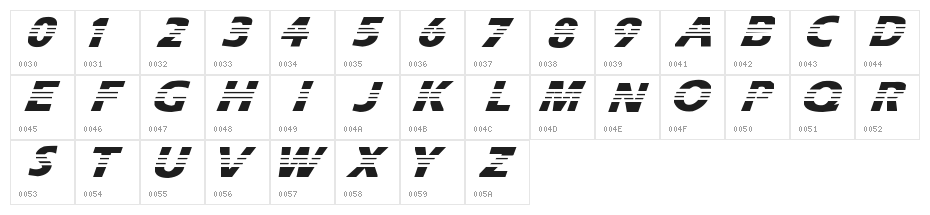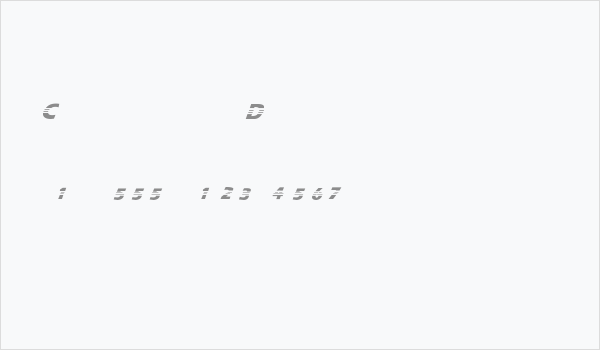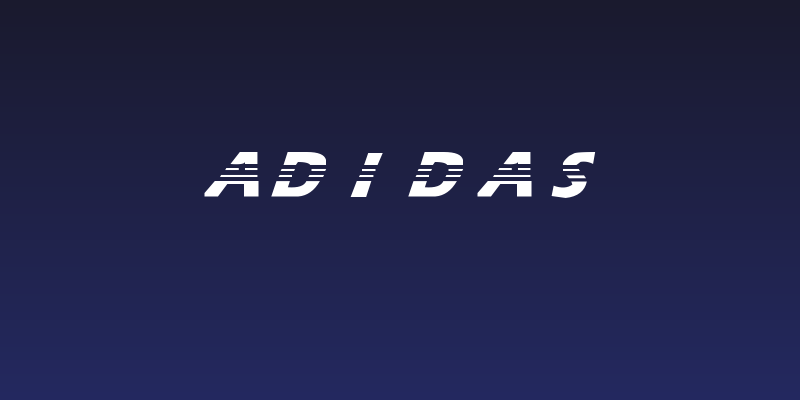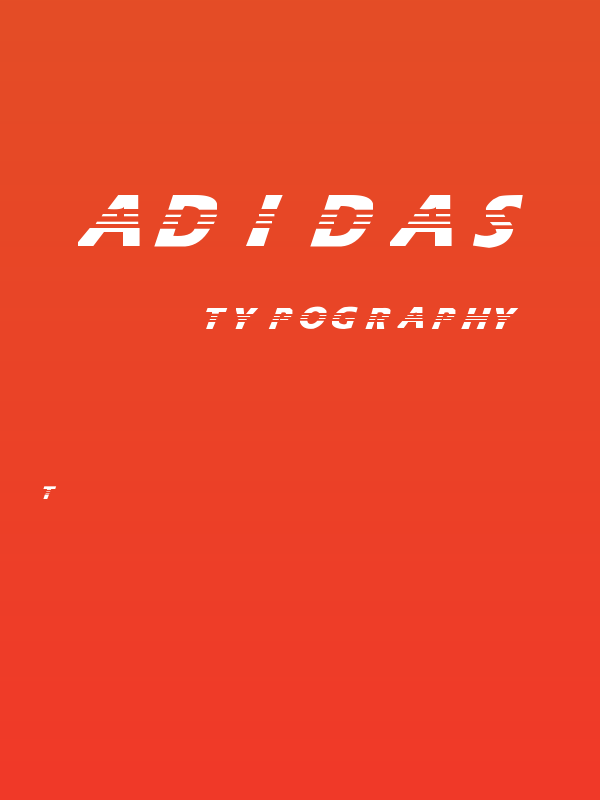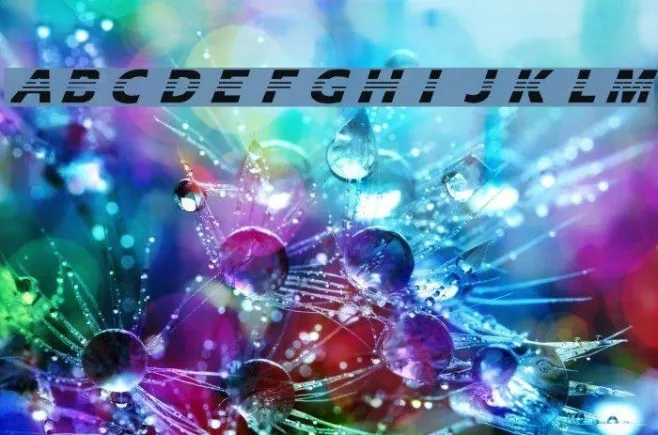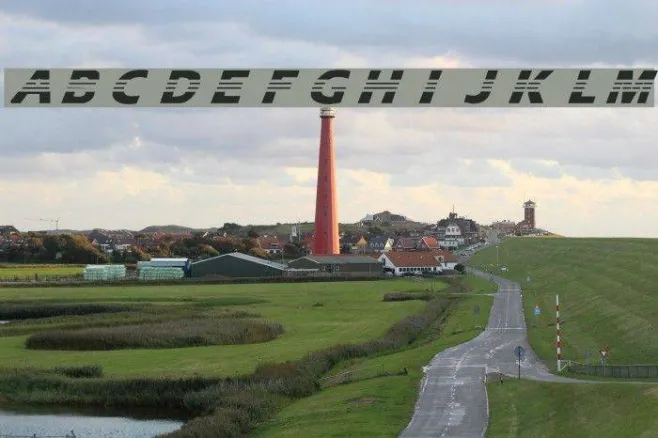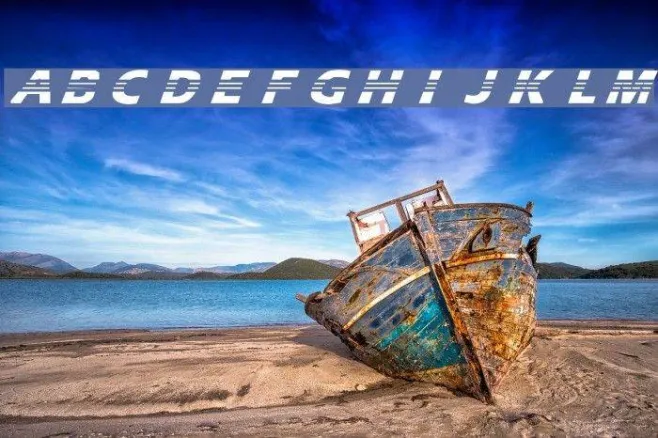
adidas Font
adidas Description
This font features a bold, modern design with a distinctive slashed effect running through each character, creating a dynamic and sporty appearance. The uppercase letters are angular and slightly italicized, giving a sense of motion and speed. The numbers follow the same style, ensuring consistency across different uses. The font's unique design makes it stand out, ideal for branding and advertising that seeks to convey energy and movement. The spacing between characters is normal, allowing for clear readability despite the decorative elements.
| Use Case | Logos, Headlines, Advertising |
| Proposed Projects | Perfect for sports branding, dynamic advertising campaigns, and modern logo designs. |